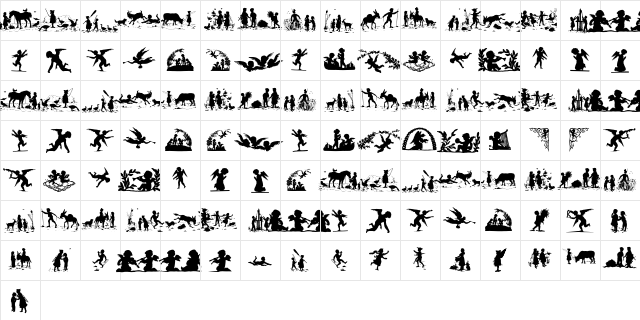
KinderUndAndereEngel Regular Font Preview
KinderUndAndereEngel Regular
KinderUndAndereEngel Regular Font Details
Design Context for KinderUndAndereEngel Typeface
KinderUndAndereEngel is a composed and adaptable typeface that performs quietly and consistently across a wide range of design contexts.